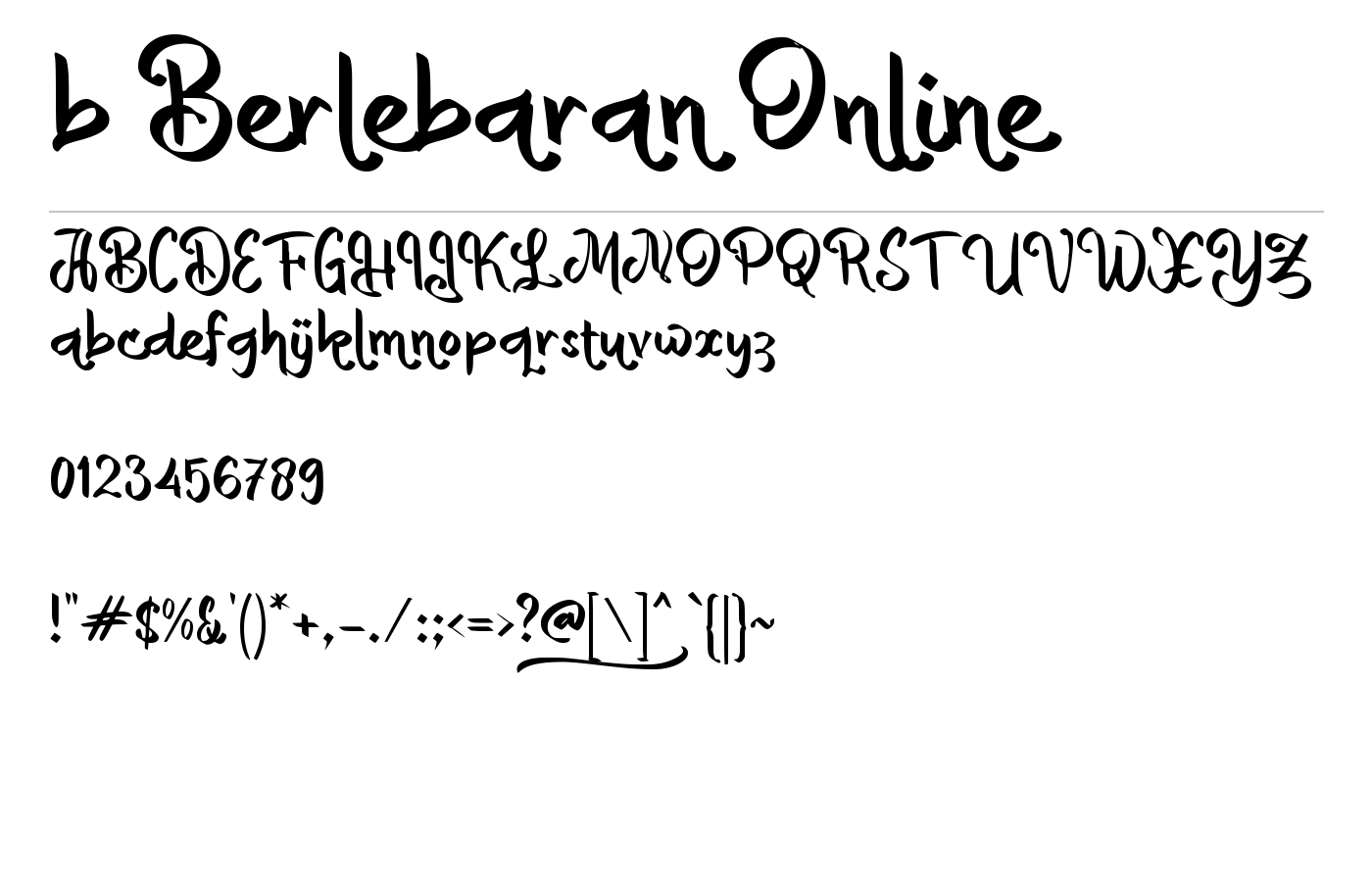
b Berlebaran Online is a playful and expressive script font with a hand-drawn feel, featuring smooth, flowing curves and whimsical letterforms that convey a casual yet artistic personality. Its moderate weight and medium contrast strokes make it ideal for creative branding, invitations, and headline use where a friendly, informal tone is desired. This font works best in designs that want to emphasize individuality and charm, adding a touch of handcrafted elegance without feeling too formal.
b Berlebaran Online Font
About b Berlebaran Online Font
| Font family | b Berlebaran Online Font |